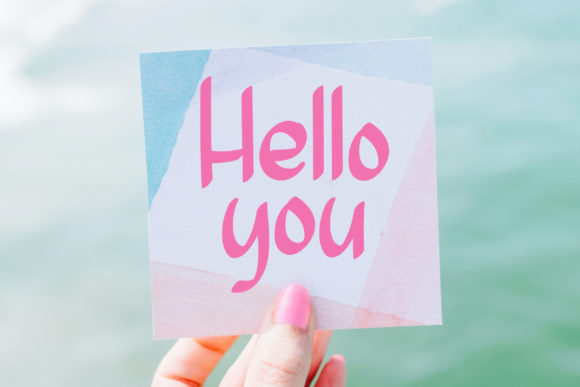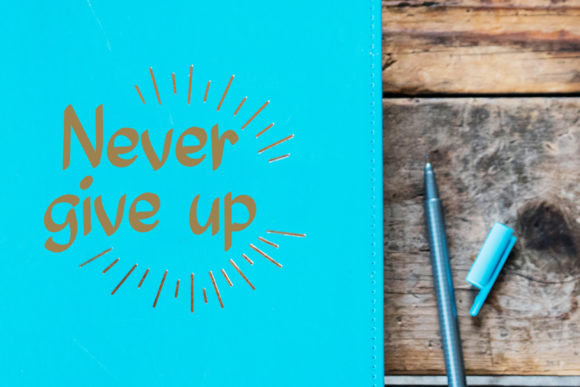
Stickers Valentine Font
db-ku.com - Script & Handwritten -- Stickers Valentine is a cute and simple lettered handwritten font that can be used for all chalkboard quotes or teaching material! Its authentic look will add a personal and realistic feel to your designs.